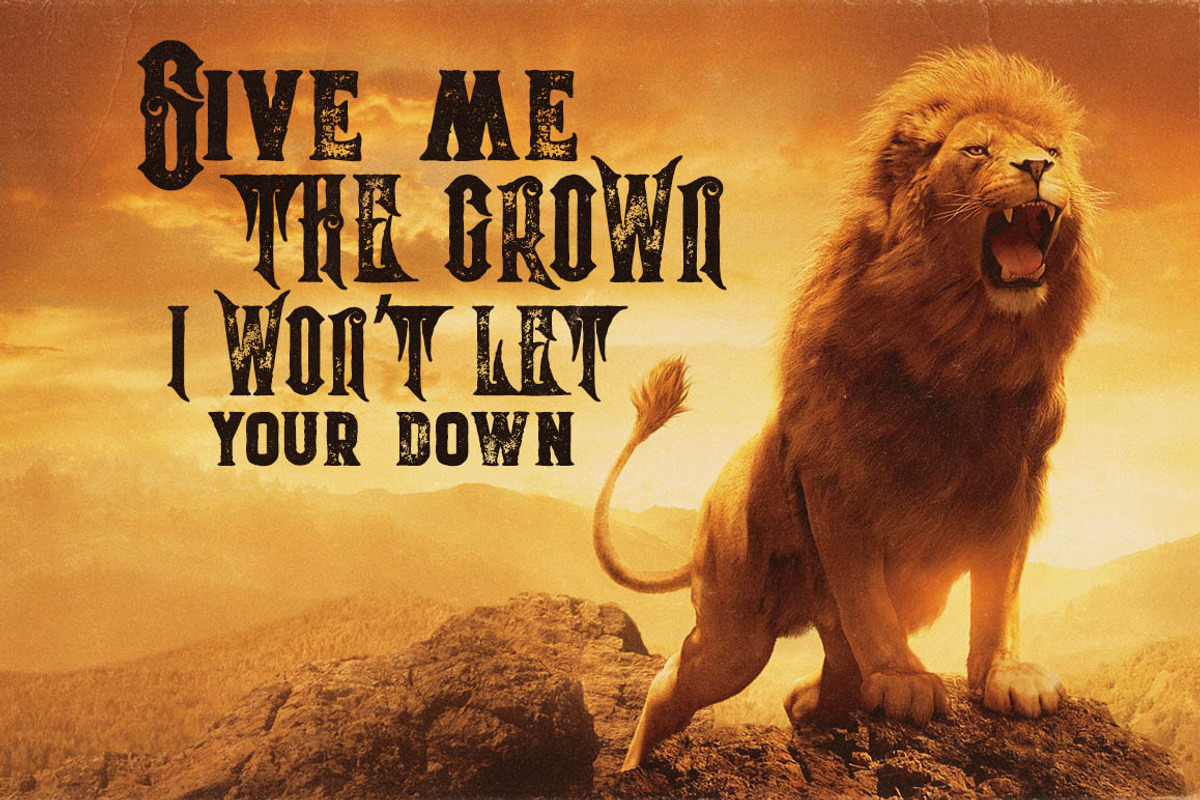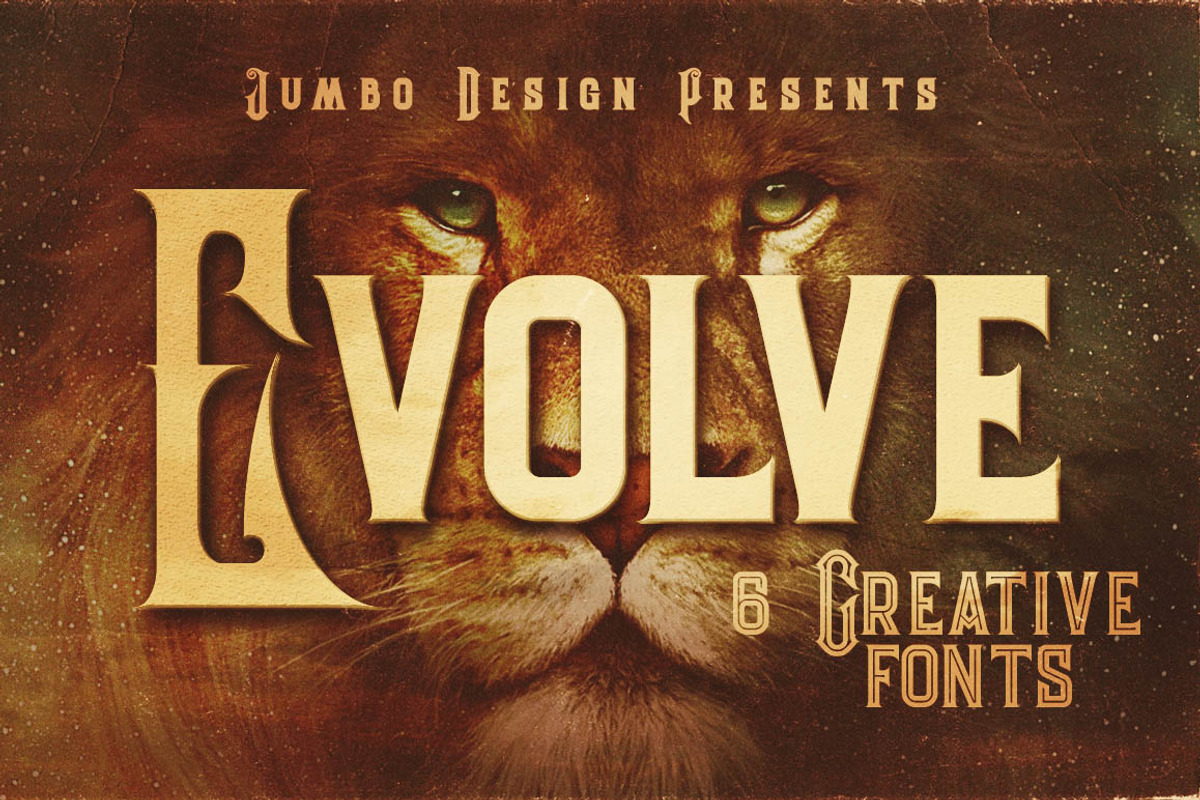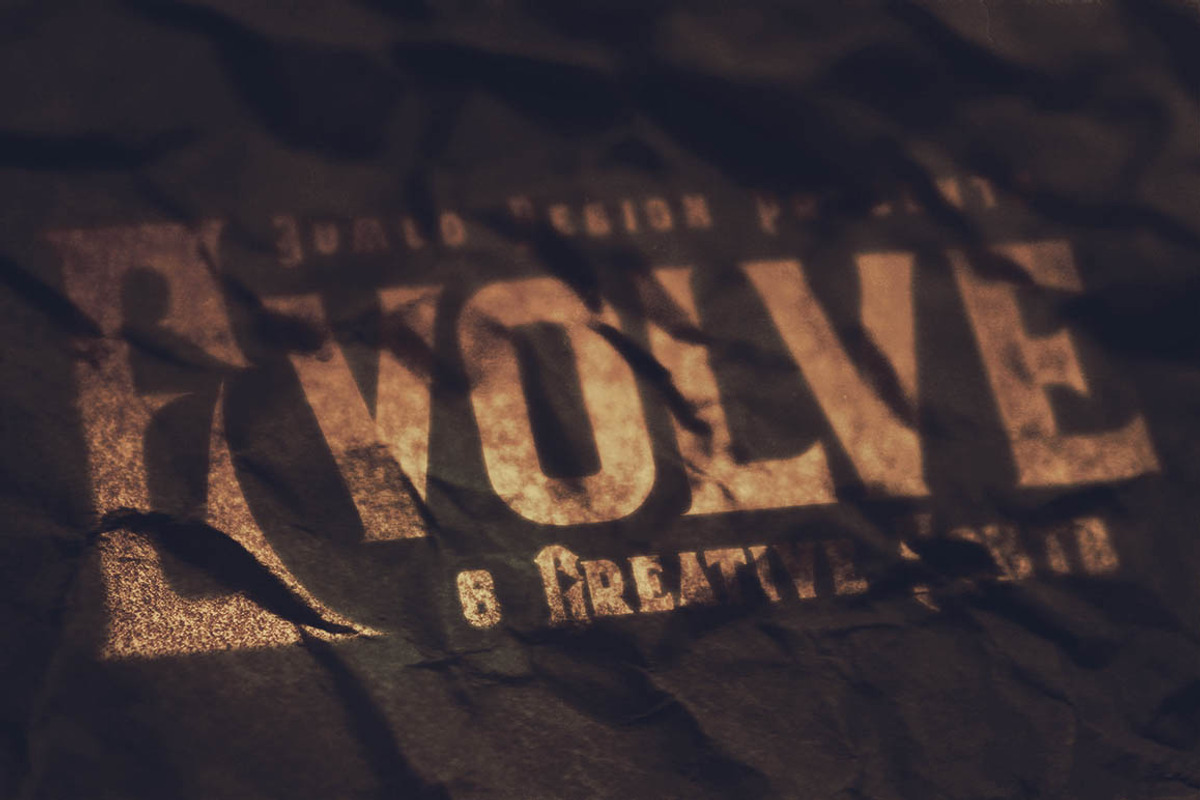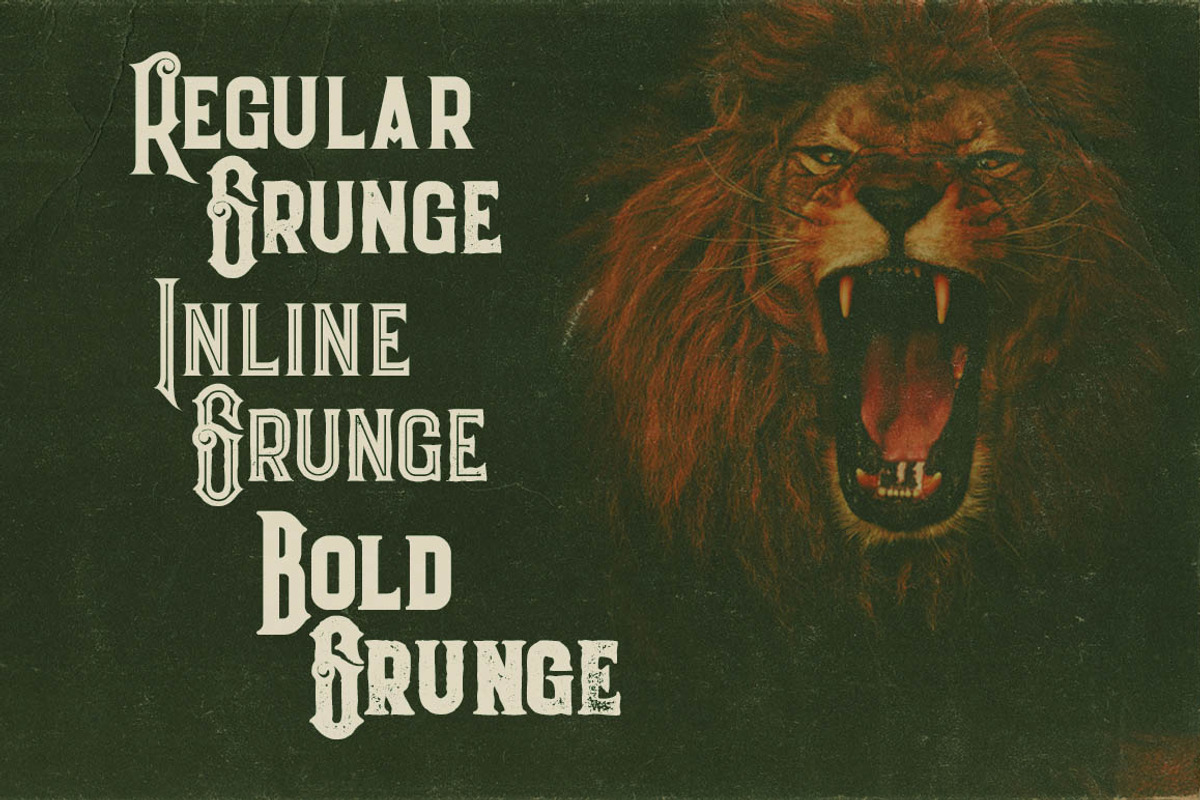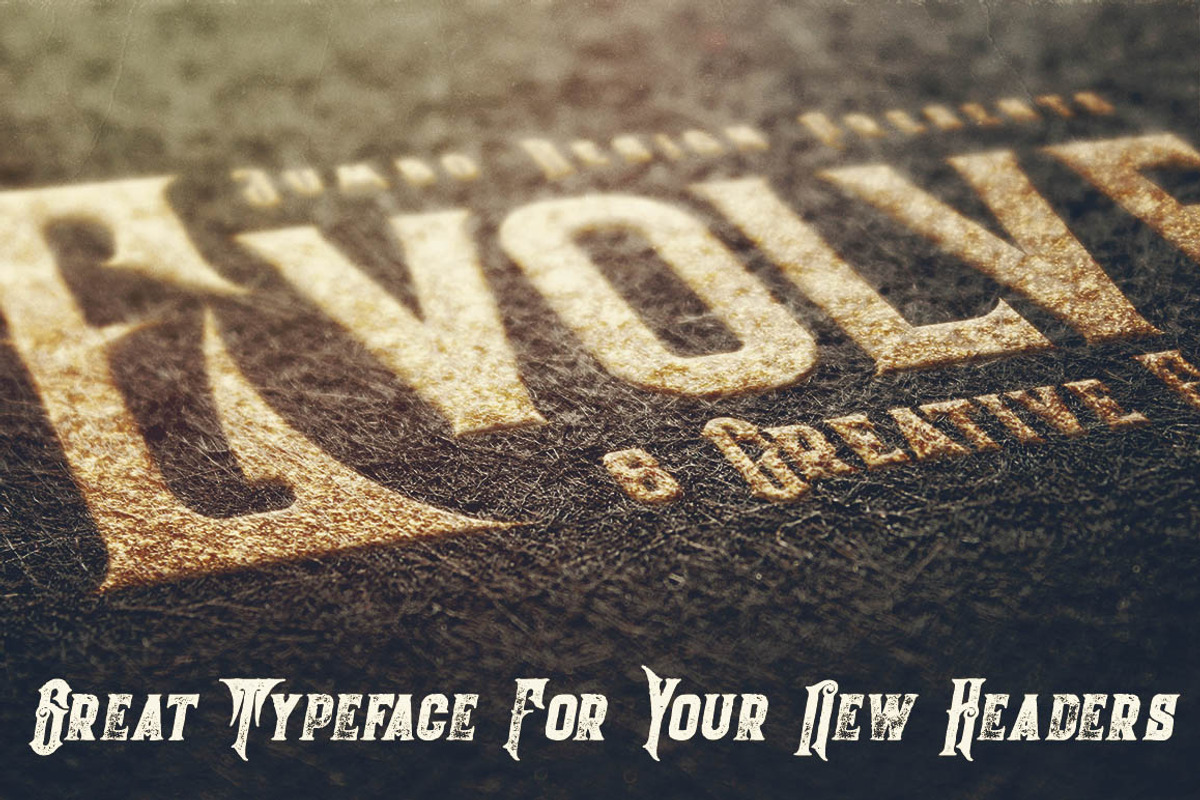
Evolve - Vintage Style Font
Evolve - Vintage Style Font by JumboDesign is a font selected for branding, posters, packaging, typography.
Why Evolve - Vintage Style Font is worth a look
Evolve - Vintage Style Font by JumboDesign fits naturally into Branding, posters, packaging, typography.